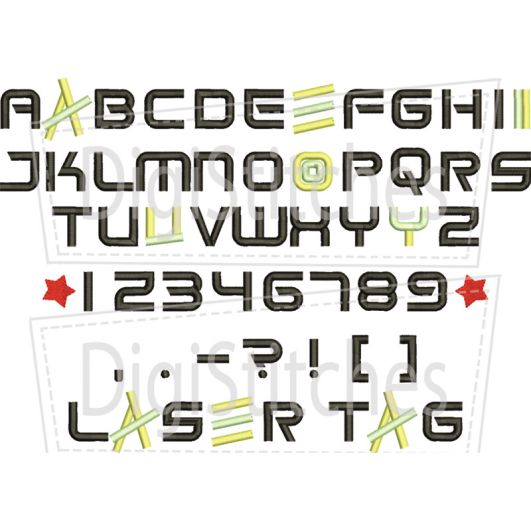
Laser Tag Satin Stitch Embroidery Font
Laser Tag Embroidery Font
Laser Tag embroidery font is a fun and unique embroidery font to add something extra special to your embroidery projects!
Featuring bold letters that really stand out on t-shirts and projects.
Capital letters A thru Z, numbers 0-9, punctuation, alternate vowels and stars as shown.